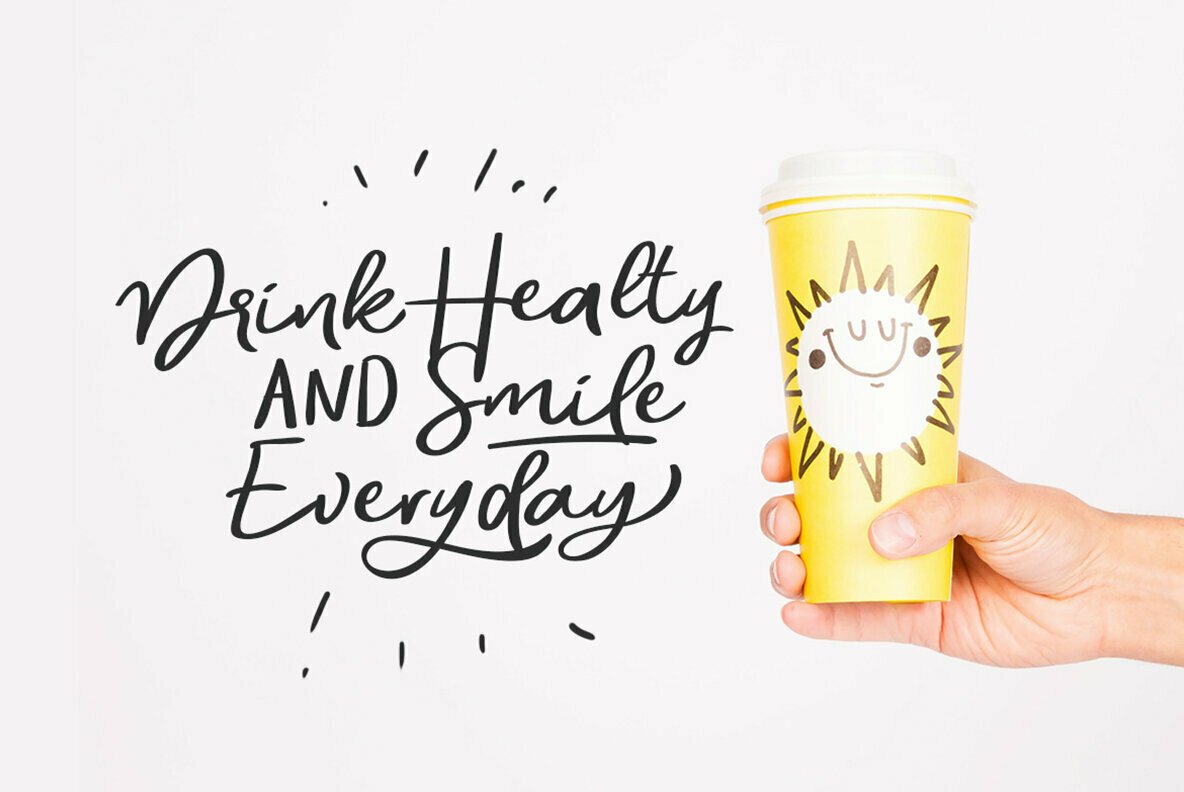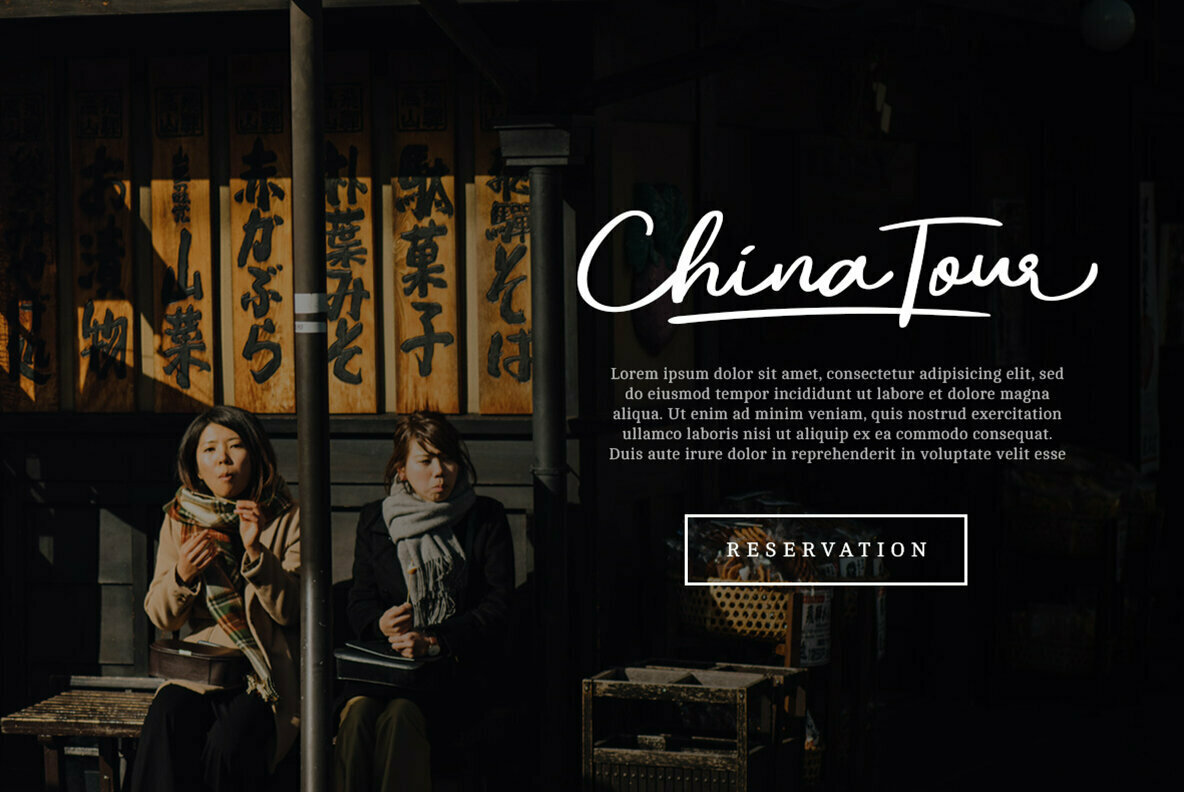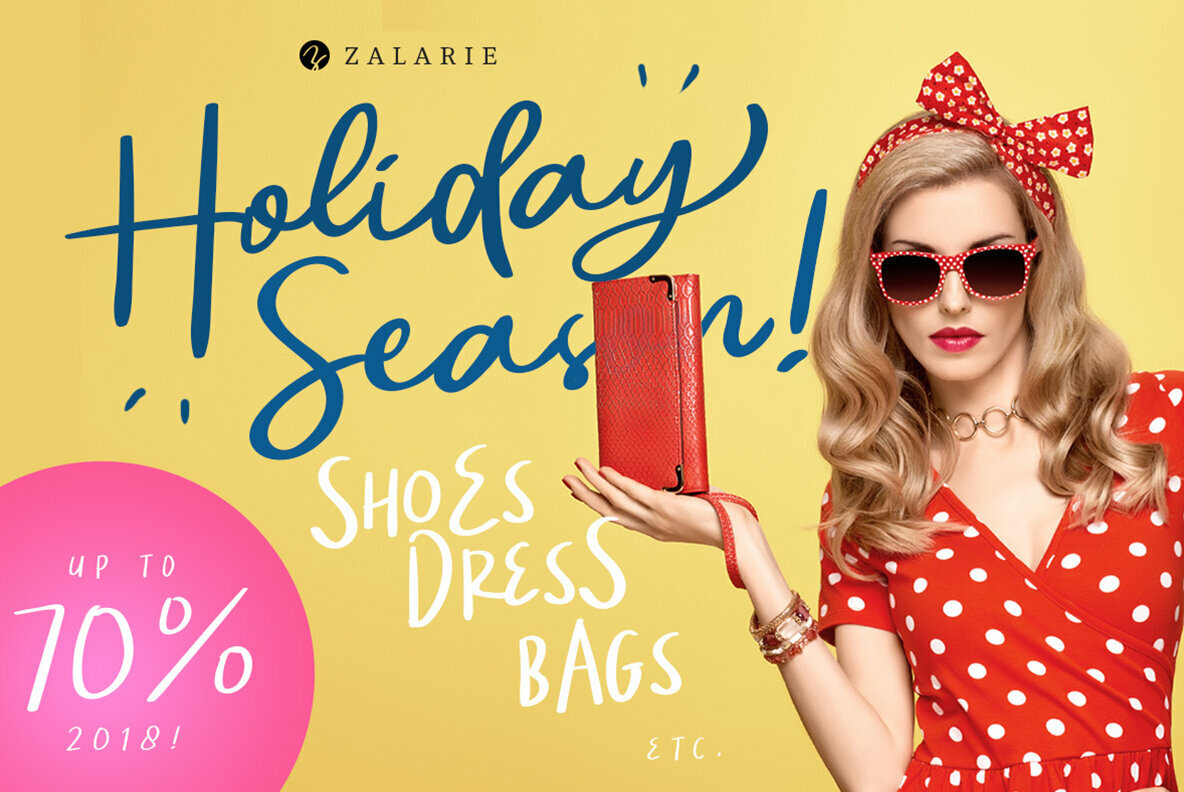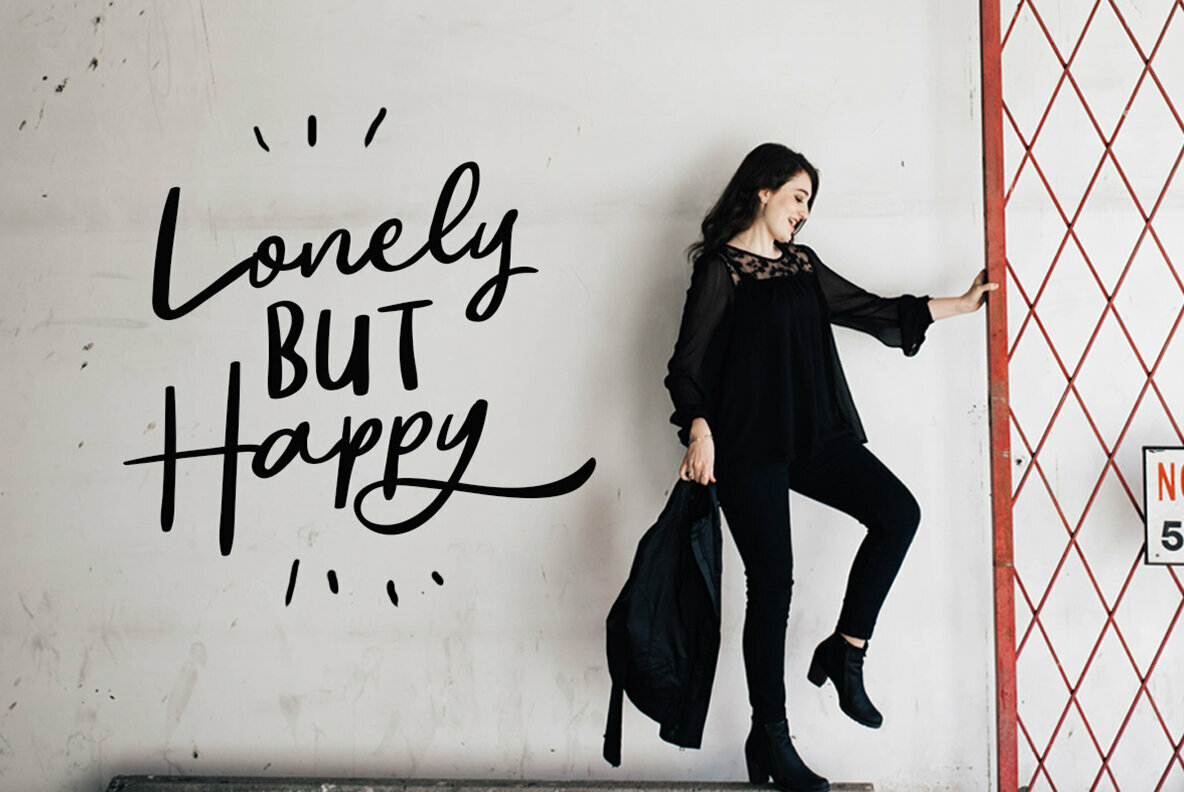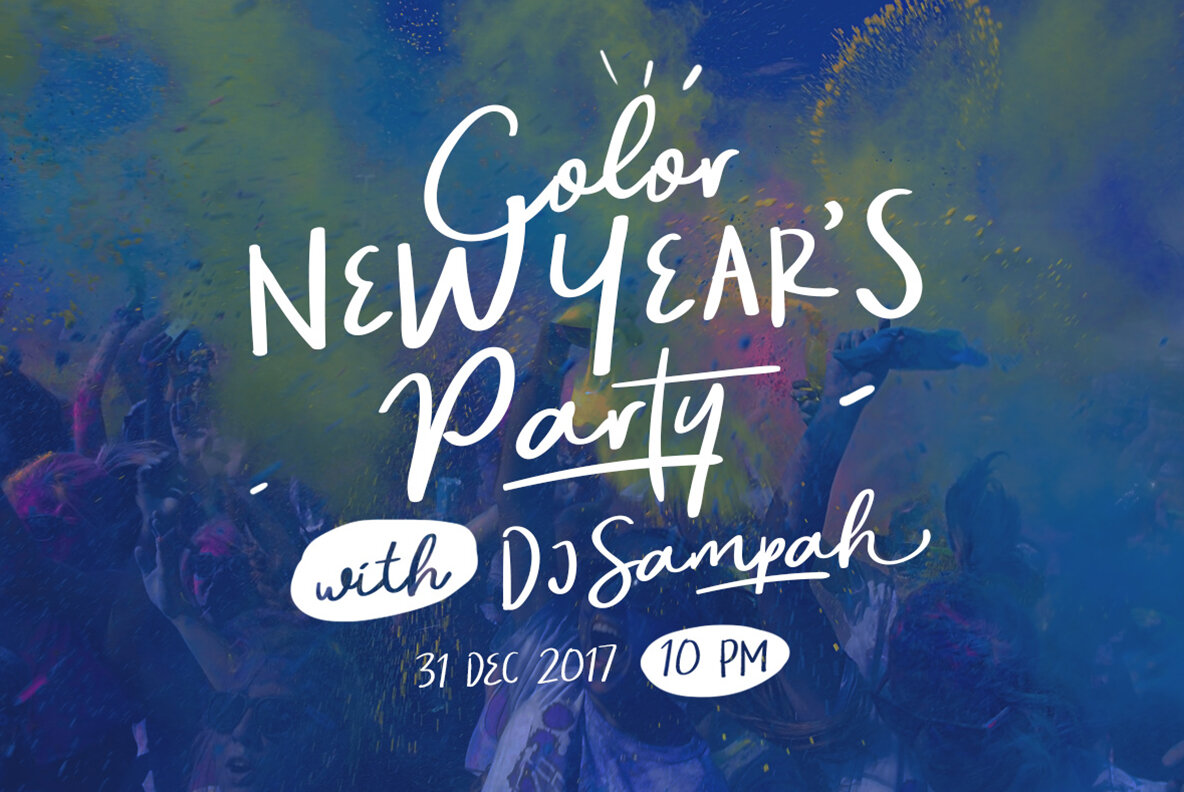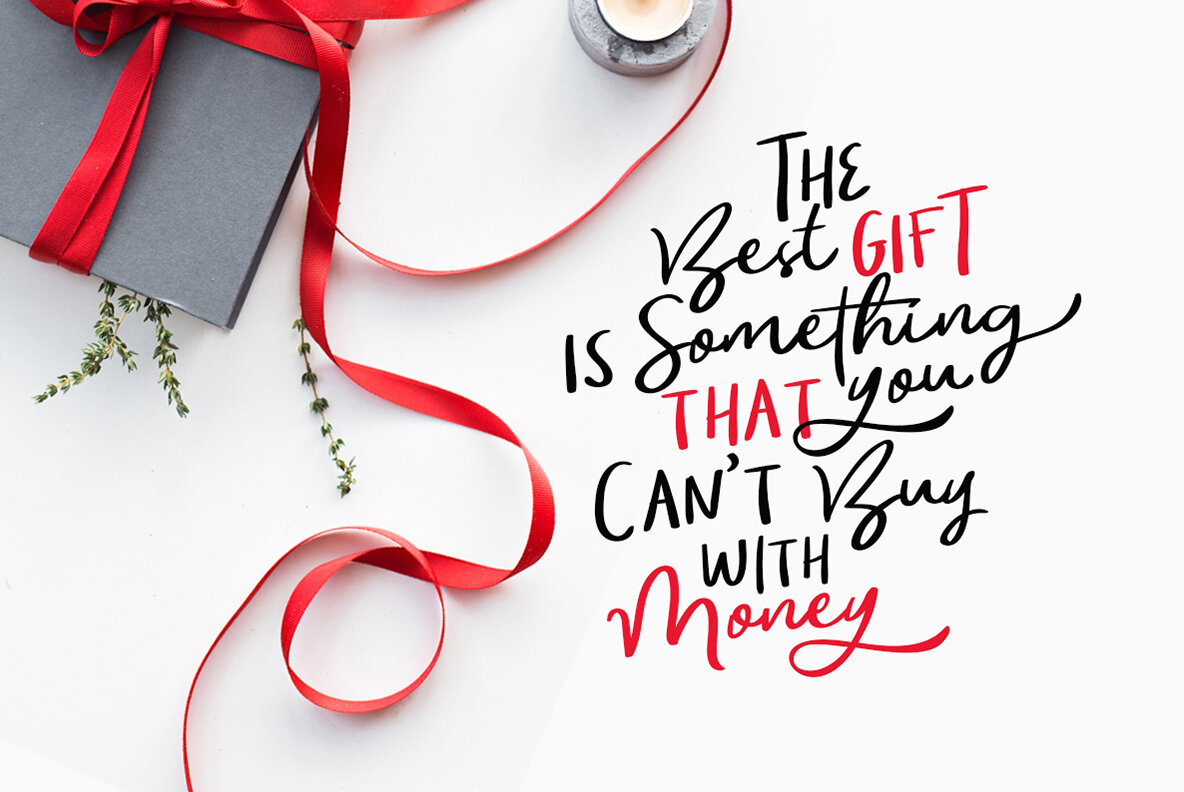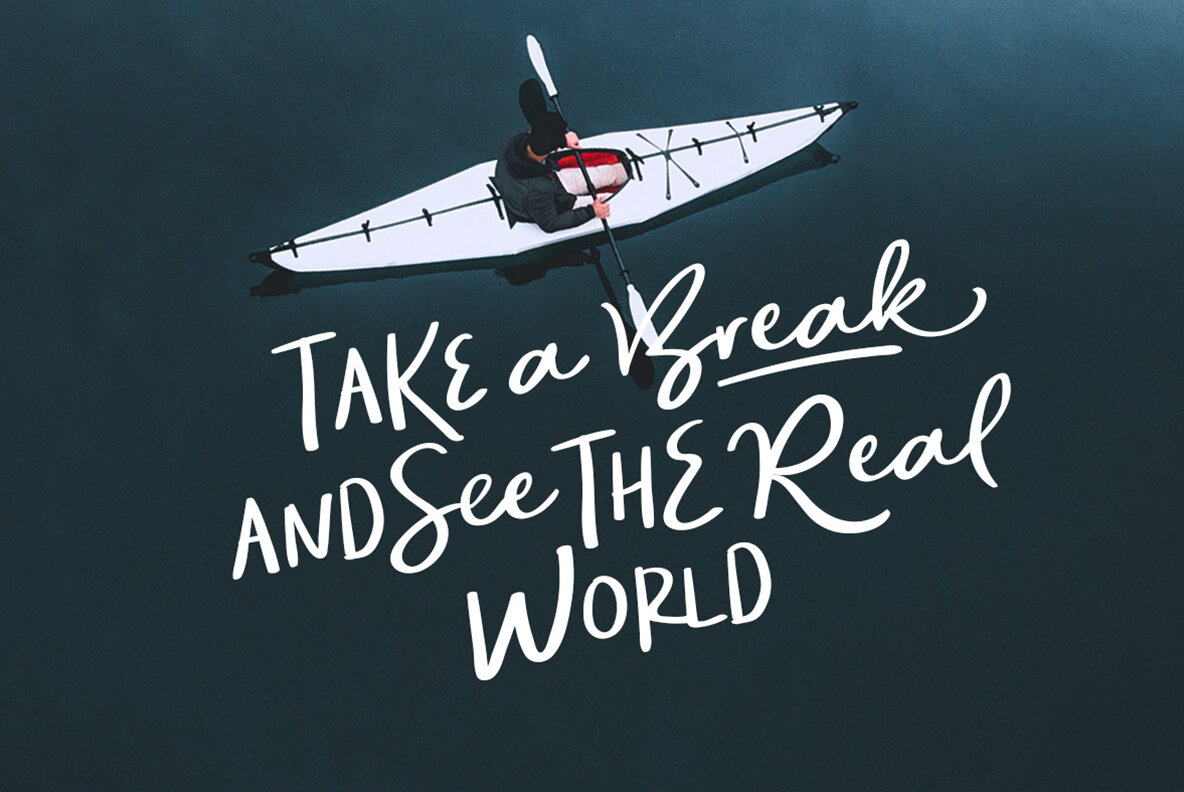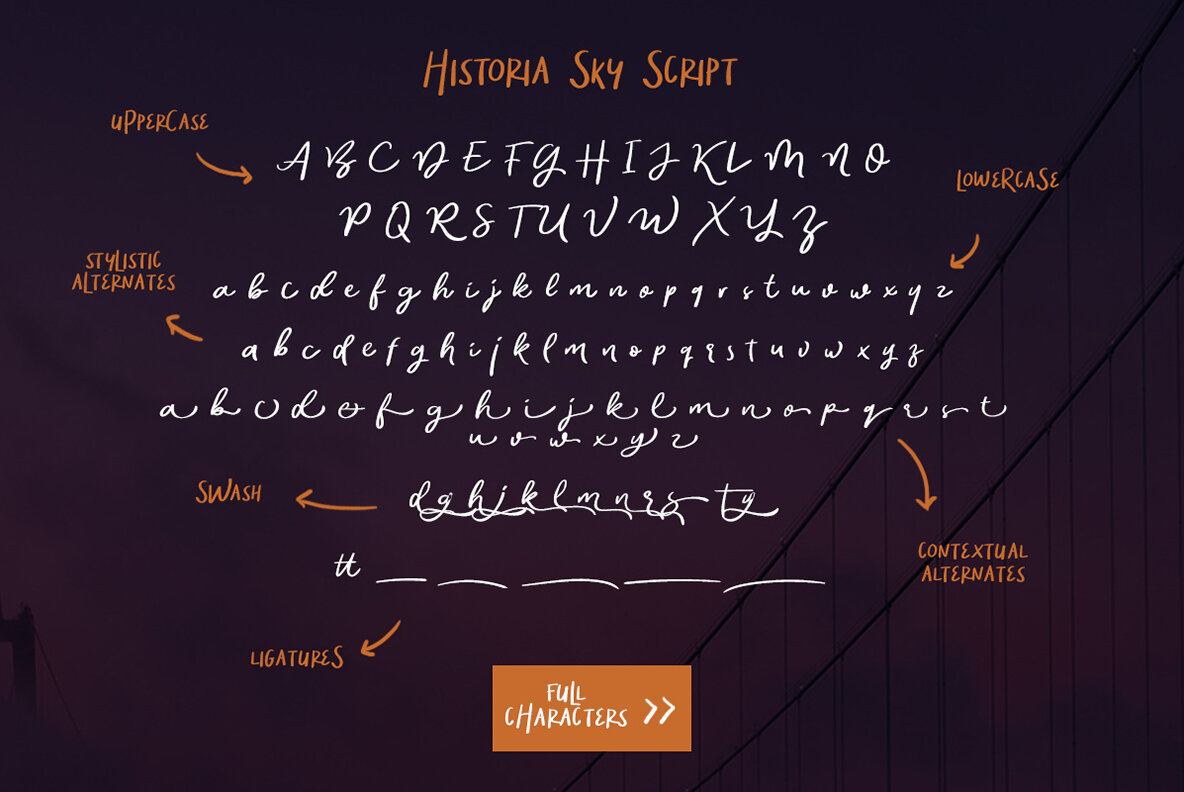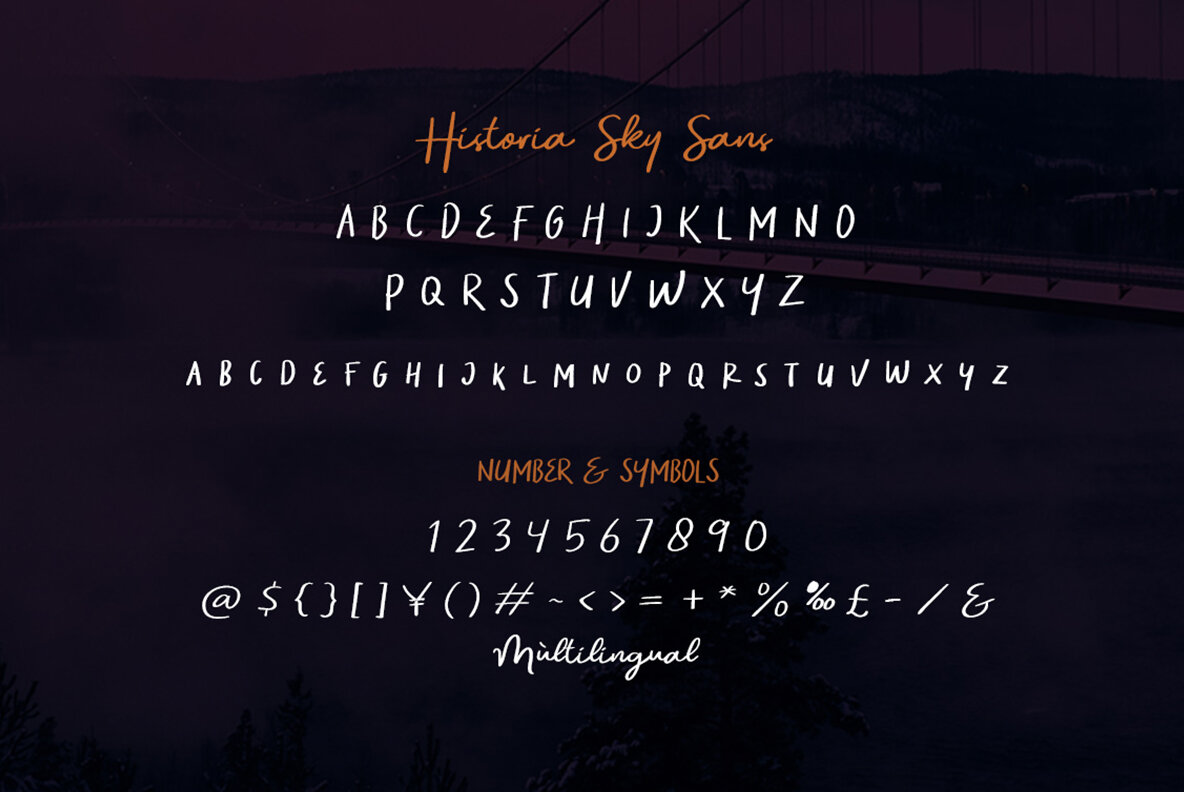
Historia Sky Font Duo
Historia Sky Sans
Historia Sky Script
Unleash your creativity with Historia Sky Font Duo, a versatile pairing that marries the fluidity of handwritten strokes with stylistic flair. Ideal for crafting personalized signatures or imparting charm to your favorite quotes, this duo is as functional as it is aesthetically pleasing.Historia Sky Font Duo: A Handwritten Elegance